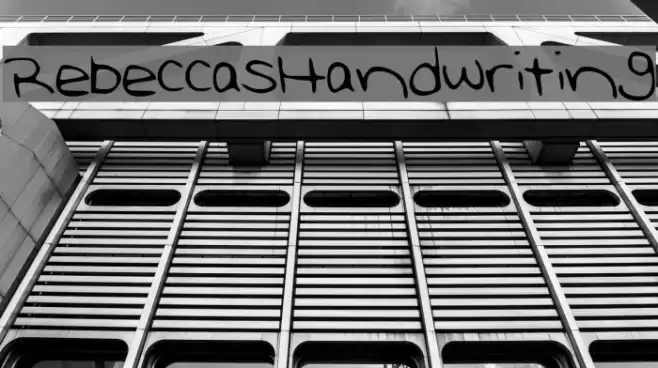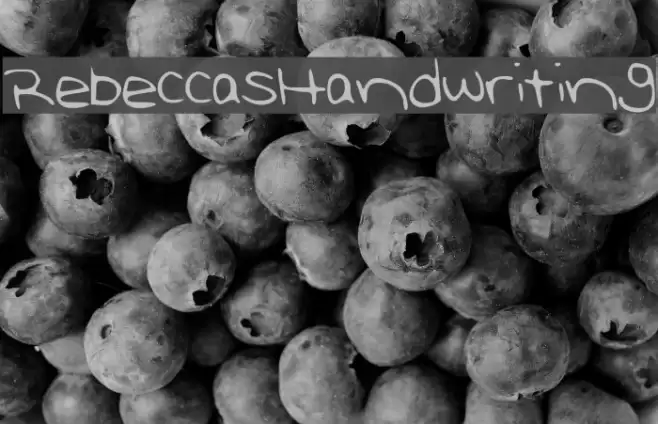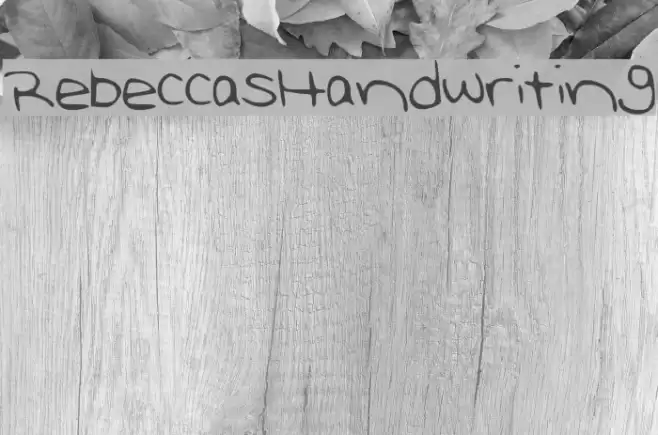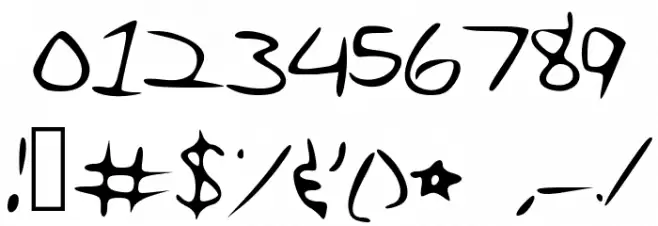
RebeccasHandwriting Font
RebeccasHandwriting Description
This font exudes a playful and informal vibe, reminiscent of casual handwriting. The characters are slightly irregular, with varying stroke thickness that adds a dynamic and lively feel. The uppercase letters are bold and prominent, while the lowercase letters maintain a consistent flow, enhancing readability. The numbers are quirky, matching the overall whimsical style. Special characters are creatively designed, adding to the font's unique personality. This font is ideal for projects that require a personal touch or a friendly, approachable aesthetic.
A playful, handwritten-style font with irregular strokes and a lively character from Handwritten fonts.
- Proposed Projects: Ideal for greeting cards, children's books, personal blogs, and creative branding projects.
- Overall Style: Casual, Playful
- Use Case: Headlines, Informal text, Creative projects